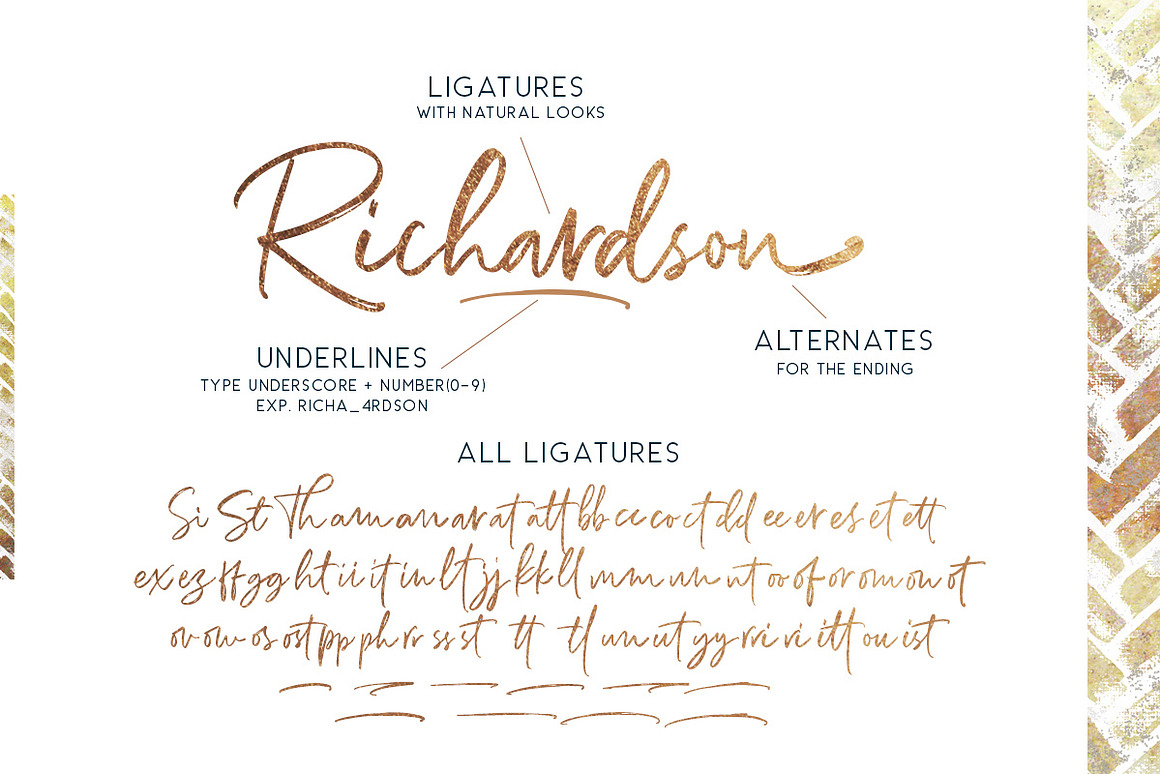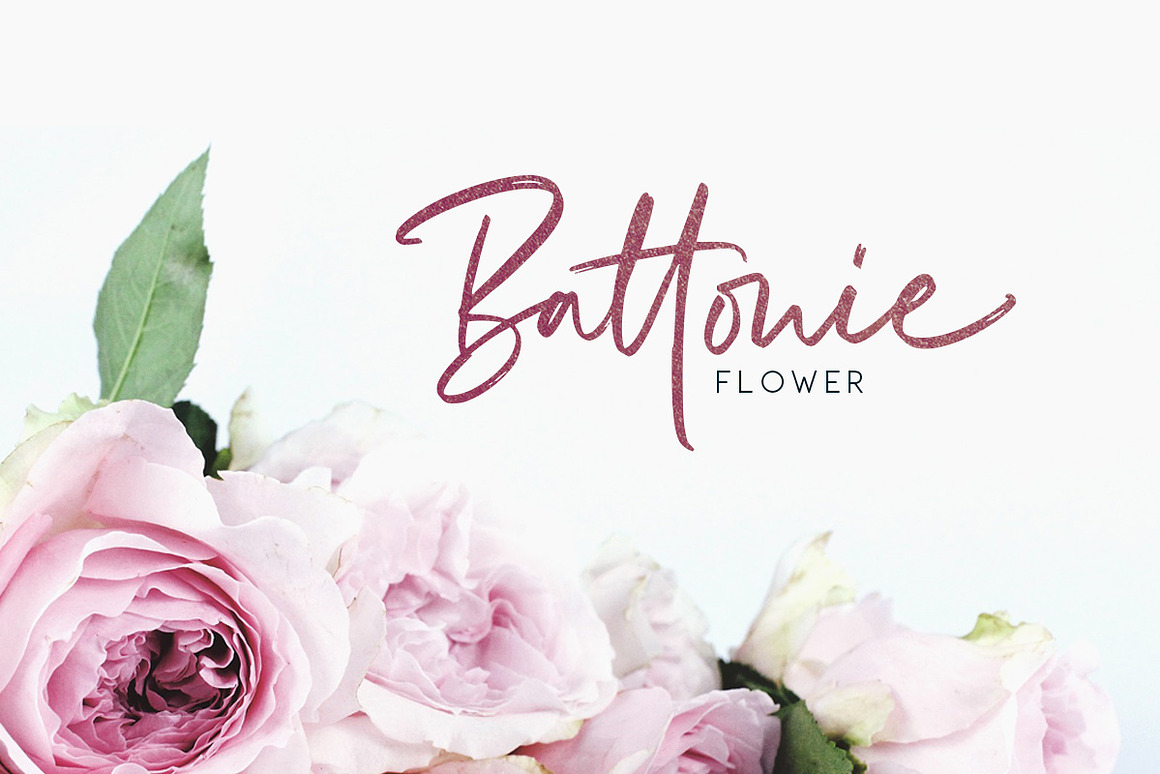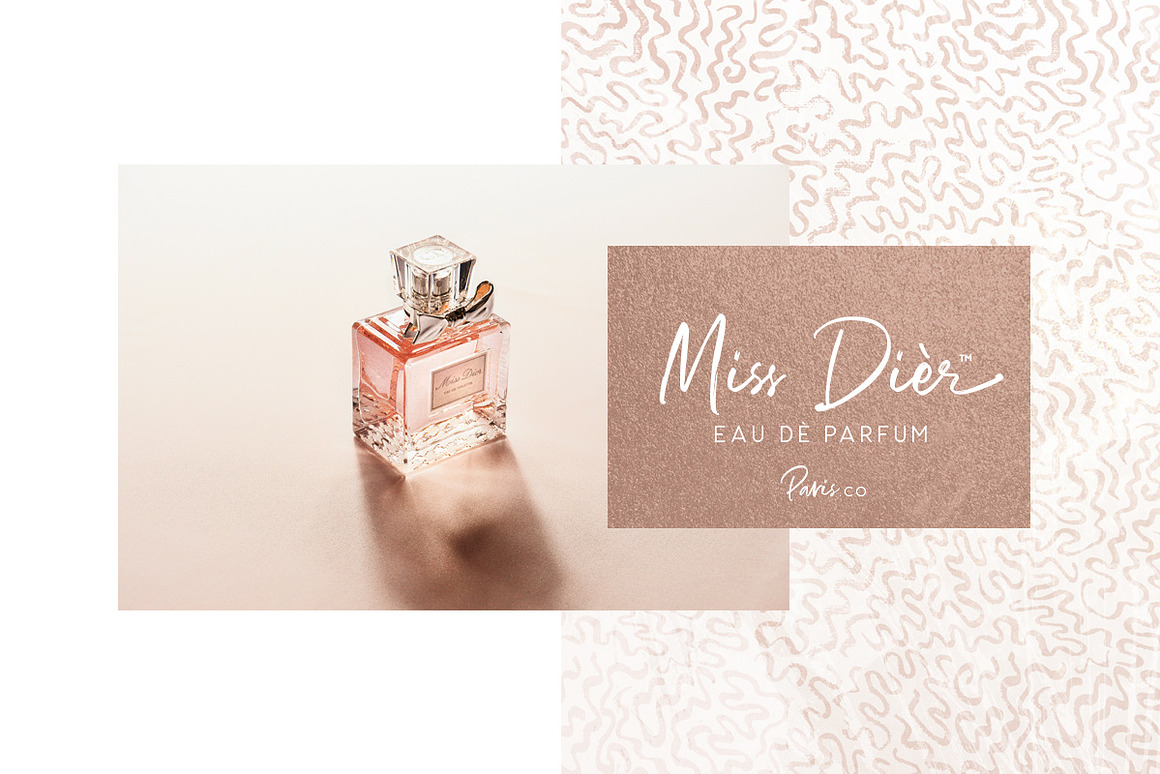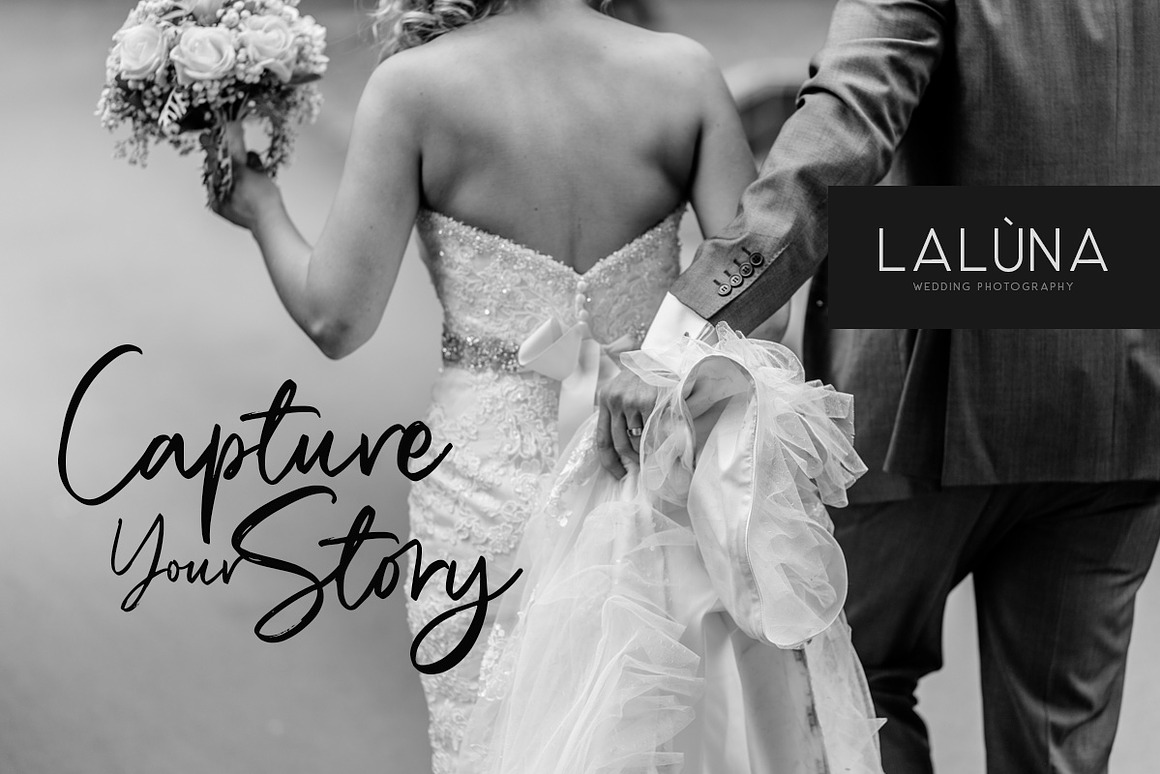
Richardson - Signature Brush Font
This Richardson - Signature Brush Font is perfect for personal signature designs, artistic autograph applications, handwritten logo branding, authentic calligraphy projects, personalized wedding invitations, elegant signature collections, distinguished document signing, artistic brush lettering, luxury personal branding, and sophisticated handwriting applications.
What makes this Richardson - Signature Brush Font exciting is its distinguished authenticity that captures the refined elegance and personal character of masterful signature artistry. The font features flowing brush letterforms with signature characteristics that convey personal distinction, artistic sophistication, and handwritten elegance. Its signature character and brush-inspired design make it ideal for brands seeking to communicate personal excellence, artistic authenticity, and distinguished handwriting in luxury and personal branding markets.
The Richardson - Signature Brush Font family includes regular and bold weights with signature alternates, artistic variants, and distinguished flourishes. This comprehensive signature font family provides designers with elegant typographic tools to create personal compositions while maintaining the handwritten character essential for luxury personal brands and distinguished signature communications.
The distinguished construction of Richardson - Signature Brush Font showcases artistically crafted letterforms with signature proportions that ensure exceptional elegance across all personal applications. Its handwritten appearance and artistic character create memorable impressions while maintaining the readability necessary for effective signature communication and personal branding materials.
Professional designers appreciate how Richardson - Signature Brush Font brings immediate signature authenticity and artistic elegance to brand communications. The font's handwritten nature allows organizations to communicate personal distinction and artistic sophistication while maintaining the professional quality necessary for effective positioning in luxury personal branding and signature artistry markets.
The sophisticated appeal of Richardson - Signature Brush Font makes it particularly effective for brands emphasizing personal signature, artistic handwriting, and distinguished elegance. Its refined character resonates strongly with audiences who appreciate signature artistry, personal distinction, and brands that represent the pinnacle of handwritten elegance and sophisticated signature craftsmanship.